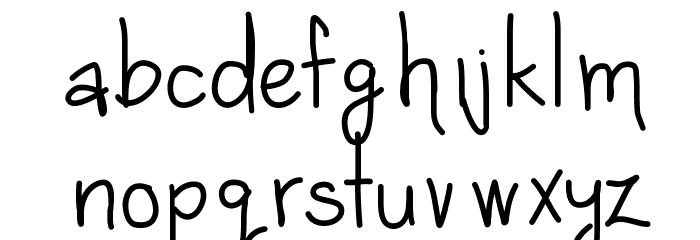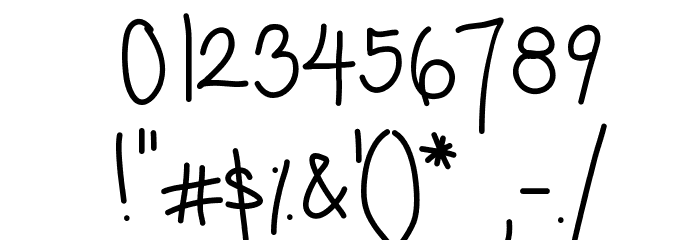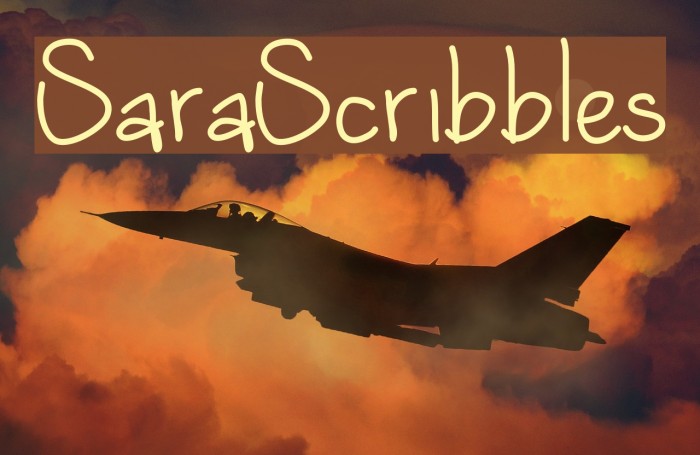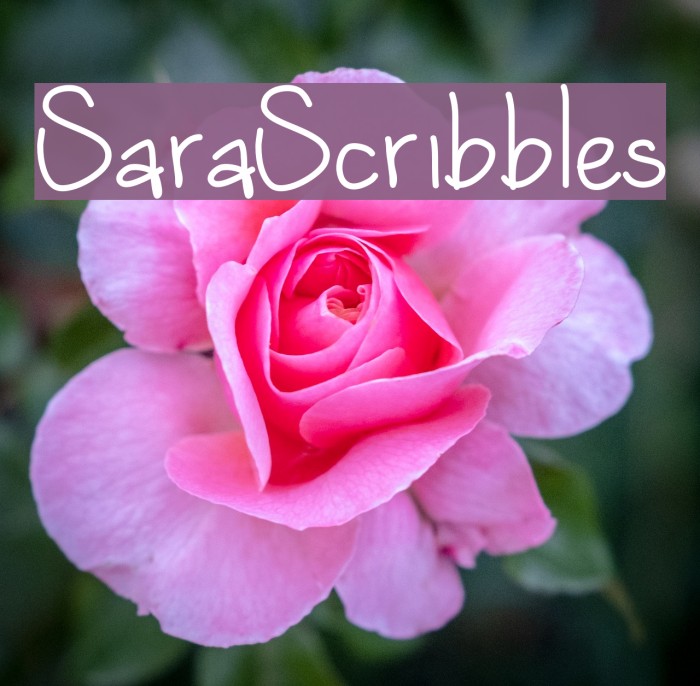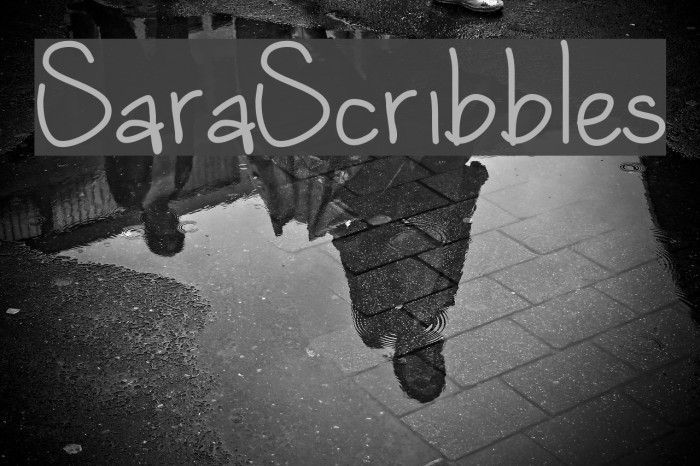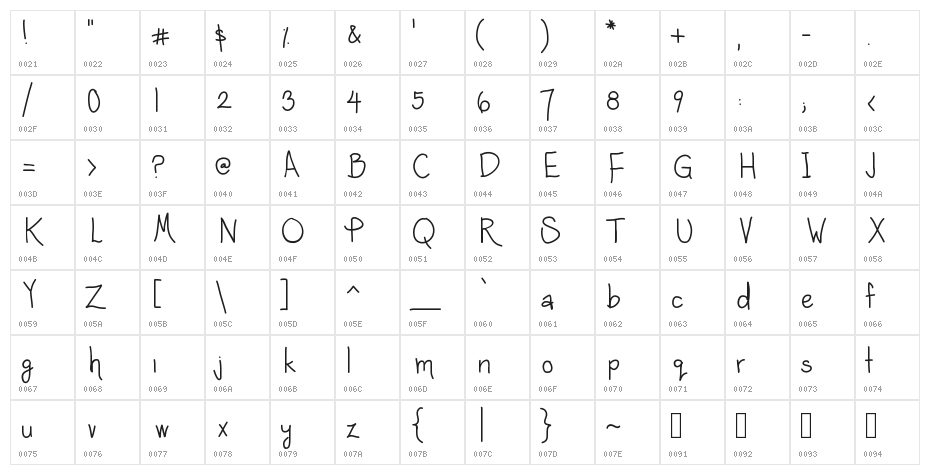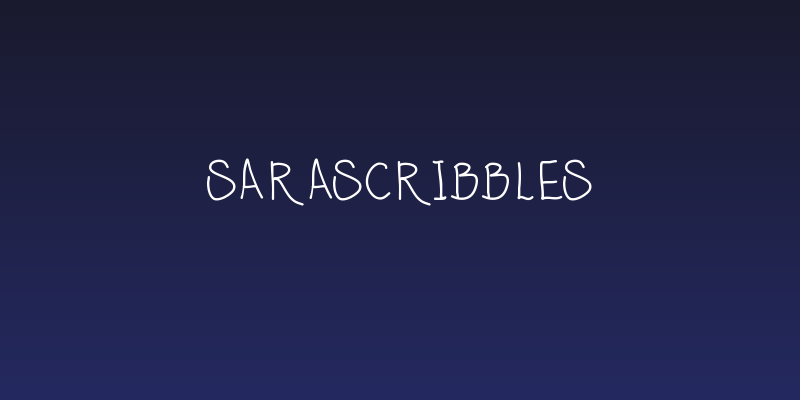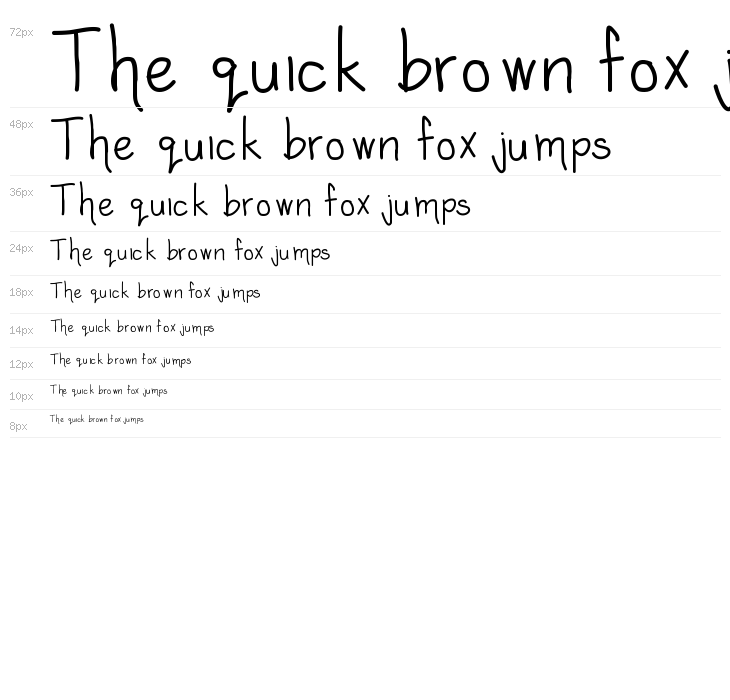
SaraScribbles Font
This playful and whimsical font features a handwritten style that exudes a casual and friendly vibe. The letters are slightly irregular, giving it a personal touch that mimics natural handwriting. The strokes are consistent in width, with a medium contrast that maintains readability while adding character. The font includes a full set of uppercase and lowercase letters, numbers, and a variety of special characters, making it versatile for different uses. Its informal style is perfect for projects that require a personal or creative touch.
A playful handwritten font with a casual and friendly vibe.
- Proposed Projects: Ideal for greeting cards, children's books, personal blogs, and creative projects that benefit from a personal touch.
- Category: Handwritten
- Overall Style: Casual
- Use Case: Headlines, Informal text, Creative projects